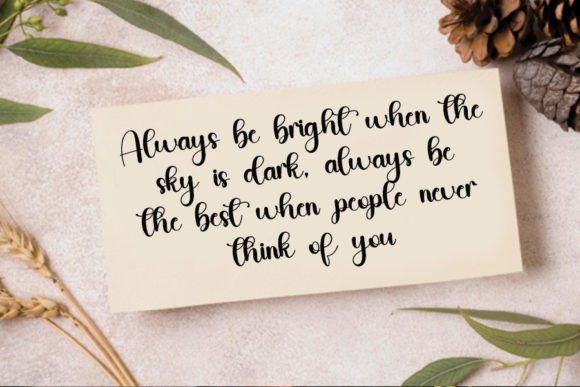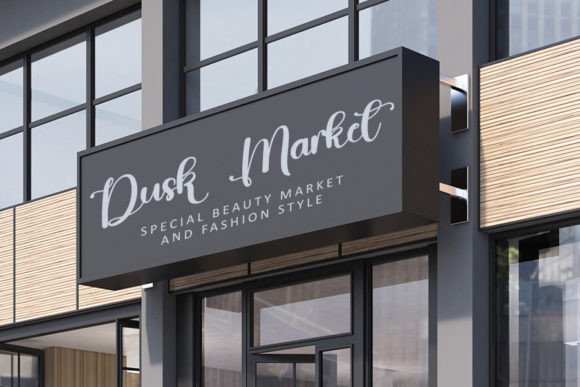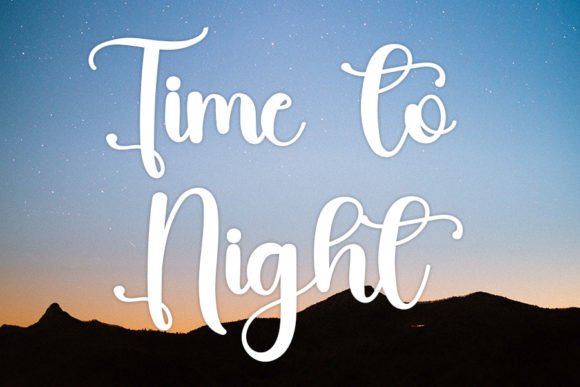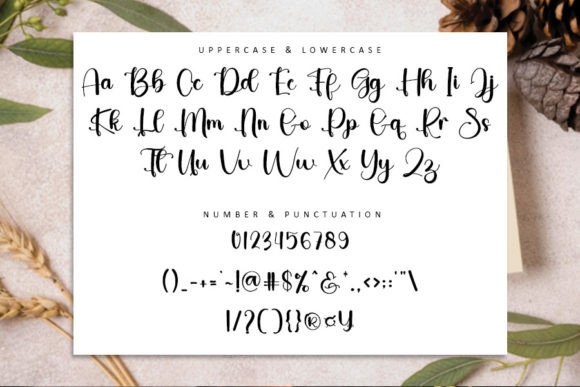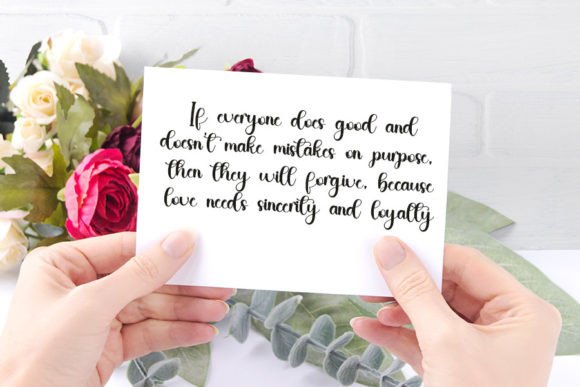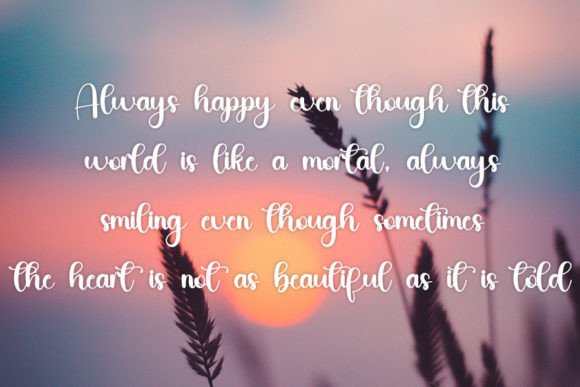
Dusk Font: Elevate Your Designs with Elegance and Sophistication
In the world of typography, a well-crafted font can make all the difference in transforming a design from ordinary to extraordinary. For designers and crafters seeking a touch of elegance and sophistication, the Dusk Font is an exceptional choice. This beautiful, refined handwritten font is perfect for a wide range of applications, from logos and branding to invitations, stationery, and wedding designs.
The Essence of Dusk Font
Dusk Font is a classy and modern typeface that exudes refinement and poise. Its handwritten nature gives it a personal and intimate feel, making it ideal for designs that require a touch of warmth and personality. Whether you’re creating a logo, crafting a social media post, or designing a wedding invitation, Dusk Font is sure to impress.
Key Features of Dusk Font
• PUA Encoded: Dusk Font is PUA (Private Use Area) encoded, which means you can easily access all the amazing glyphs and ligatures without any hassle. This feature makes it incredibly user-friendly and convenient to work with.
• Wide Range of Applications: From logos and branding to social media posts, invitations, stationery, and wedding designs, Dusk Font is versatile and adaptable. Its elegance and sophistication make it suitable for various design projects.
• Handwritten with a Personal Touch: The font’s handwritten nature gives it a unique and personal feel, making it perfect for designs that require a touch of warmth and personality.
Why Choose Dusk Font?
With so many fonts available, why choose Dusk Font for your design projects? Here are a few compelling reasons:
• Uniqueness: Dusk Font offers a distinctive and refined aesthetic that sets it apart from more common fonts. Its elegance and sophistication make it an excellent choice for designers looking to create unique and memorable designs.
• Readability: Despite its elegant and refined nature, Dusk Font remains highly readable, making it suitable for body text and headlines alike.
• Customization: With PUA encoding, you can easily access and customize glyphs and ligatures to suit your design needs.
Inspiration and Ideas for Using Dusk Font
To truly appreciate the versatility of Dusk Font, let’s explore some design ideas and inspiration for using this beautiful typeface:
• Wedding Designs: Create stunning wedding invitations, programs, and place cards with Dusk Font. Its elegance and sophistication make it perfect for wedding designs.
• Branding and Logos: Use Dusk Font to create a lasting impression with your brand. Its refined aesthetic makes it suitable for luxury brands, boutiques, and high-end services.
• Social Media Graphics: Elevate your social media presence with Dusk Font. Create eye-catching graphics, quotes, and posts that showcase your brand’s personality.
• Stationery and Invitations: Design beautiful stationery, invitations, and greeting cards with Dusk Font. Its handwritten nature gives it a personal touch that’s sure to delight.
Tips for Working with Dusk Font
To get the most out of Dusk Font, here are some valuable tips:
• Experiment with Ligatures: Take advantage of Dusk Font’s PUA encoding to experiment with ligatures and glyphs. This will help you create unique and visually appealing designs.
• Mix and Match: Combine Dusk Font with other fonts to create a distinctive and harmonious typography. Its elegance and sophistication make it an excellent pairing font.
• Pay Attention to Spacing: As with any font, pay attention to spacing and kerning to ensure your design looks polished and professional.
Dusk Font is an exceptional choice for designers and crafters seeking a refined, elegant, and sophisticated typeface. Its versatility, readability, and customization options make it perfect for a wide range of design projects. With its PUA encoding and beautiful handwritten nature, Dusk Font is sure to elevate your designs and leave a lasting impression.